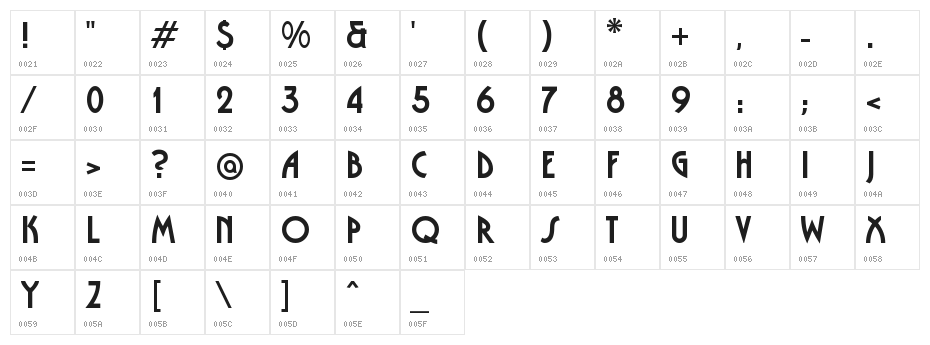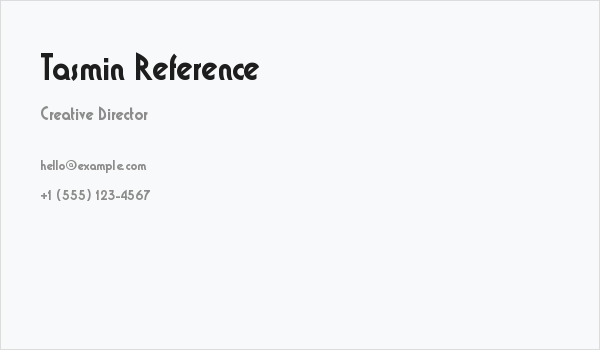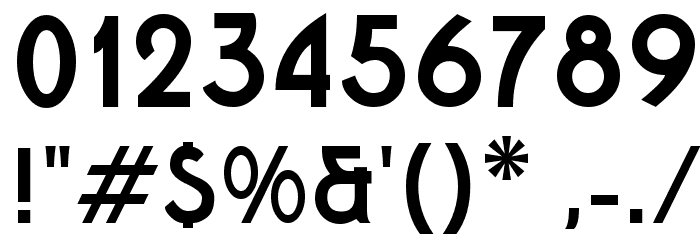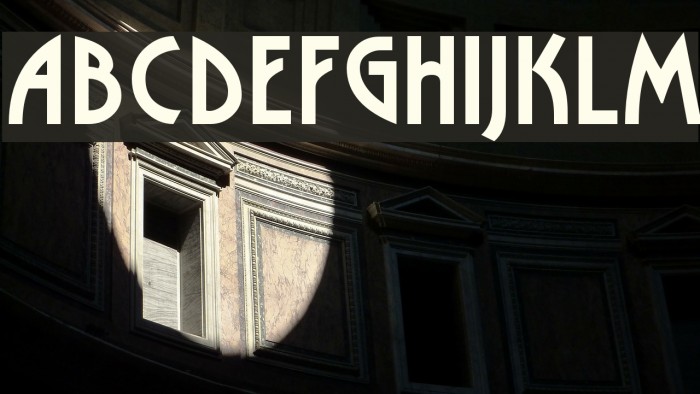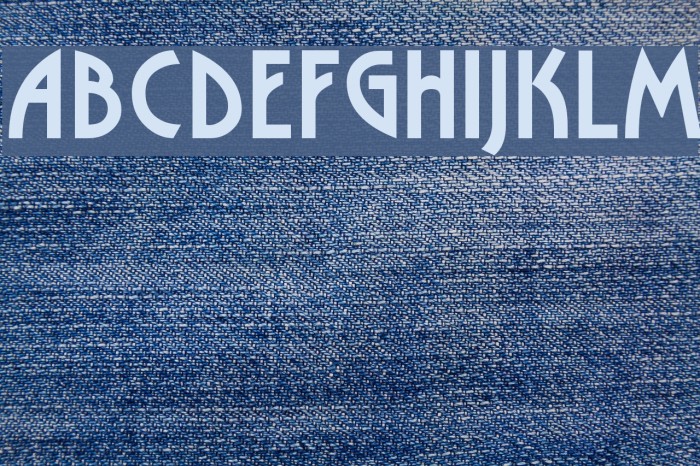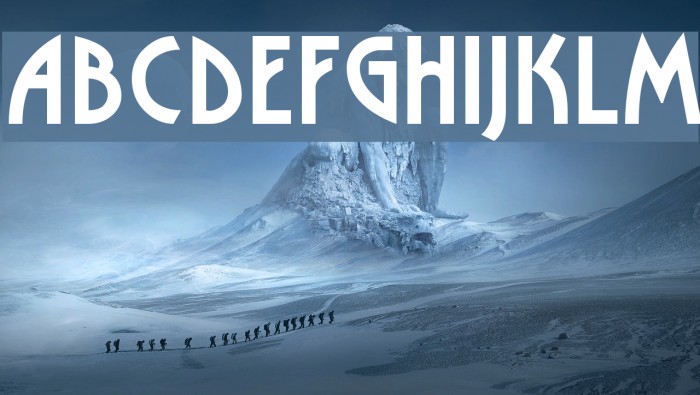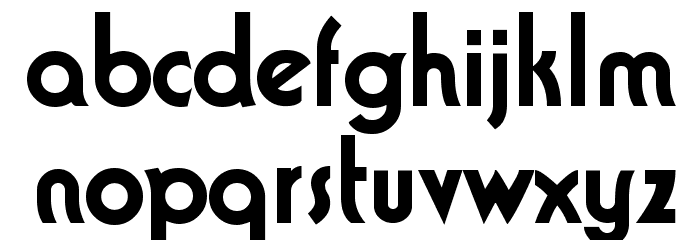
Tasmin Reference Font
Tasmin Reference Description
This font features a bold and dynamic style with a strong geometric influence. The characters are crafted with sharp angles and clean lines, creating a sense of movement and energy. The uppercase letters are particularly striking, with a unique blend of curves and straight edges that give them a modern and futuristic appearance. The lowercase letters maintain this aesthetic, offering a cohesive look across the typeface. Numbers and special characters are designed with the same attention to detail, ensuring versatility in various design contexts. The overall impression is one of boldness and clarity, making it suitable for impactful headlines and attention-grabbing designs.